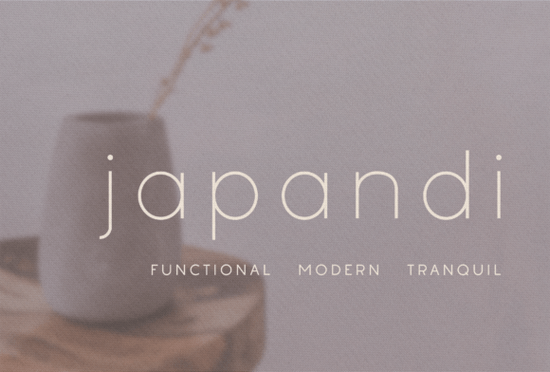
If you're looking for a clean, modern font that works well across interior design visuals, branding, and social media posts, Japandi Font is worth exploring. It’s a lightweight sans serif typeface with a minimalist feel perfect if you’re aiming for calm, thoughtful layouts without clutter.
What makes Japandi Font stand out?
Designed with simplicity in mind, Japandi combines Japanese minimalism and Scandinavian functionality. The letters are thin but clear, with balanced spacing and subtle details that keep the look fresh without drawing attention to themselves. This makes it ideal for projects where readability and elegance matter equally.
You’ll find it especially useful when working on mood boards, product labels, stationery, or digital content for home decor brands. Its neutral tone fits naturally into both warm and cool color palettes, so it adapts easily to different design styles.
Where can you use Japandi Font?
- Interior design presentations – Use it for captions, headings, and layout text in visual stories.
- Branding and logos – Works well for small businesses focused on lifestyle, wellness, or sustainable living.
- Social media graphics – Great for quotes, announcements, and promotional posts on Instagram or Pinterest.
- Invitations and cards – Adds a quiet sophistication to wedding, baby shower, or event invites.
It’s also a strong choice for print-on-demand creators who want fonts that feel premium but aren’t overly dramatic. Since it doesn’t demand attention, it lets your imagery or product shine instead.
How does Japandi fit with other fonts?
Because of its light weight and clean structure, Japandi pairs beautifully with bolder or more textured typefaces. For example, try combining it with a rustic serif for contrast, or a rounded sans for a softer touch. Check out similar styles like Sugar Magic Font, which brings a playful twist while still staying approachable.
Why choose a minimalist font like Japandi?
Minimalist fonts help avoid visual noise especially important when designing for digital screens or printed materials with limited space. They support clear communication and give your work a sense of intentionality. If you’ve ever felt your designs looked “busy” or hard to read, stepping back with a simple font like Japandi can make a real difference.
It’s not just about looks. A well-chosen font supports your message. Whether you're promoting a handmade candle line or sharing a calming quote, the right typography helps set the tone.
Is Japandi easy to use?
Final thoughts: Is Japandi Font right for your next project?
If you value clarity, simplicity, and a modern aesthetic, this font could be a solid addition to your toolkit. It’s not flashy, but it’s reliable and that matters when you’re building consistent brand identity or presenting professional work.
Give it a try on a mockup or test design. See how it feels alongside your current choices. Chances are, you’ll appreciate how little effort it takes to achieve a polished result.